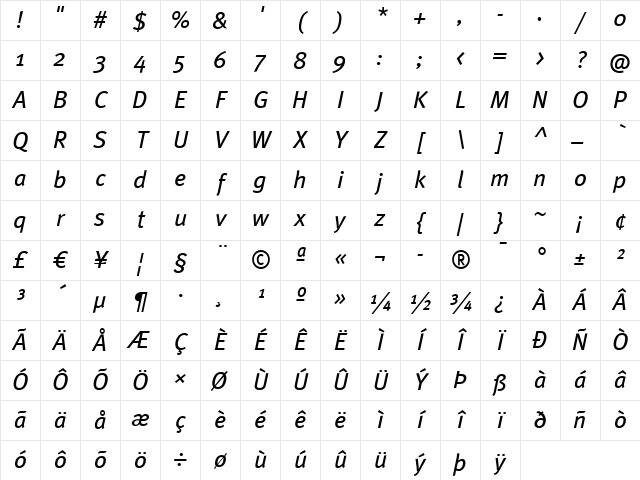
Meta Book Italic
Style: Book Italic
Foundry: Erik Spiekermann, published by Fontshop International for the FontFont library
Design Context for Meta
Meta is a composed and adaptable typeface that performs quietly and consistently across a wide range of design contexts. The slanted form adds forward momentum and visual energy.
Who designed the Meta Book Italic font?
This font was published by Erik Spiekermann, published by Fontshop International for the FontFont library. Check the technical specs section for copyright and designer details.